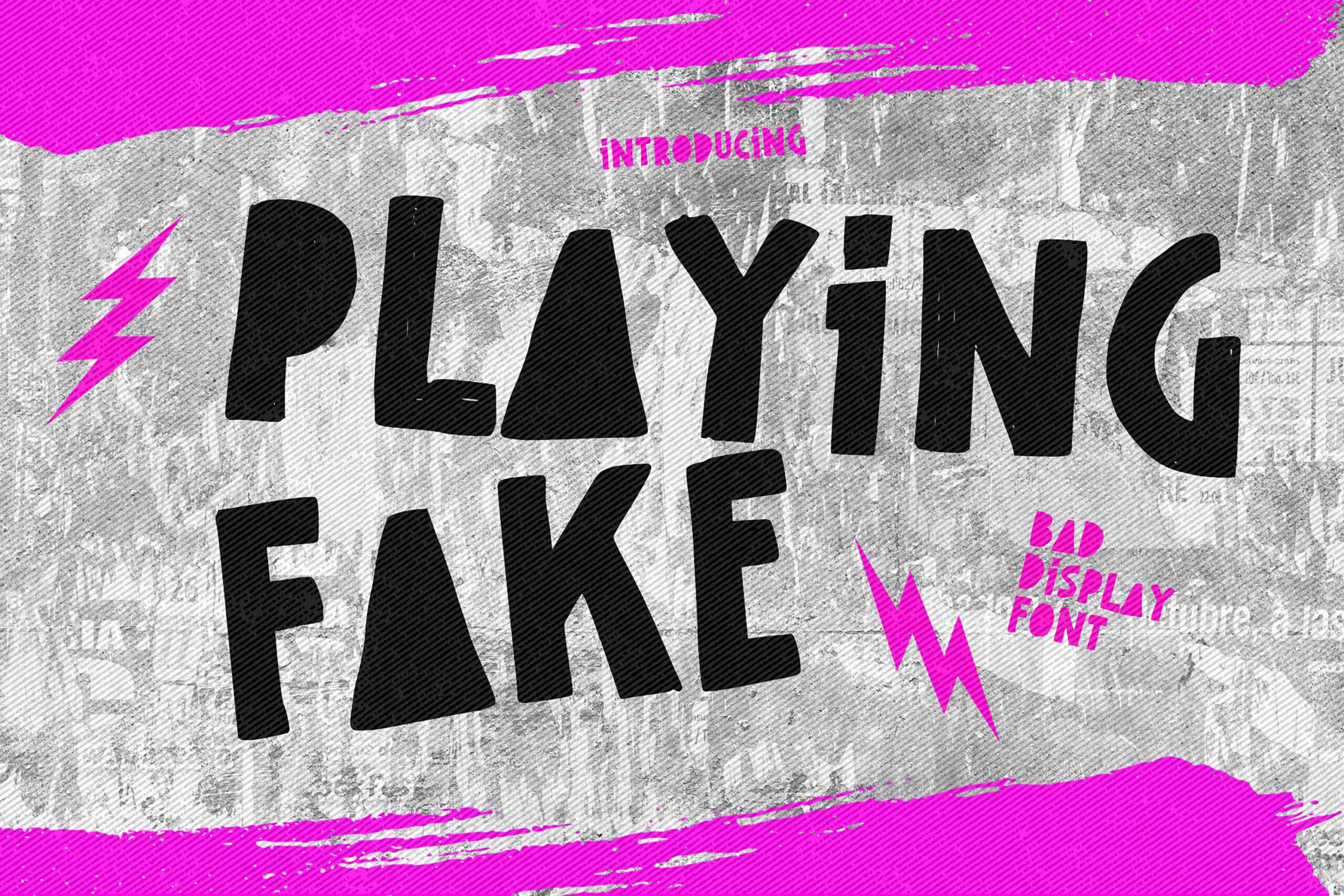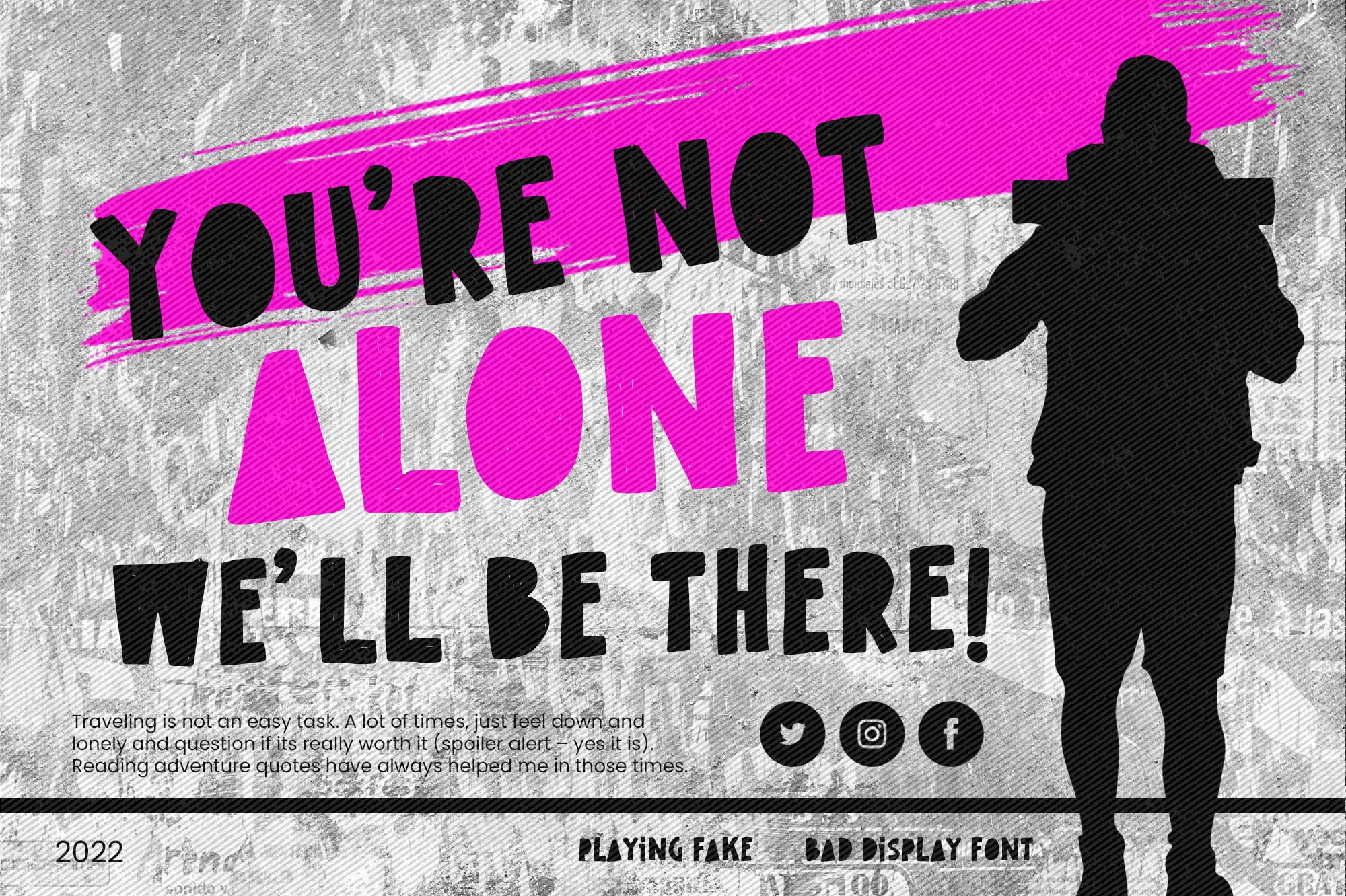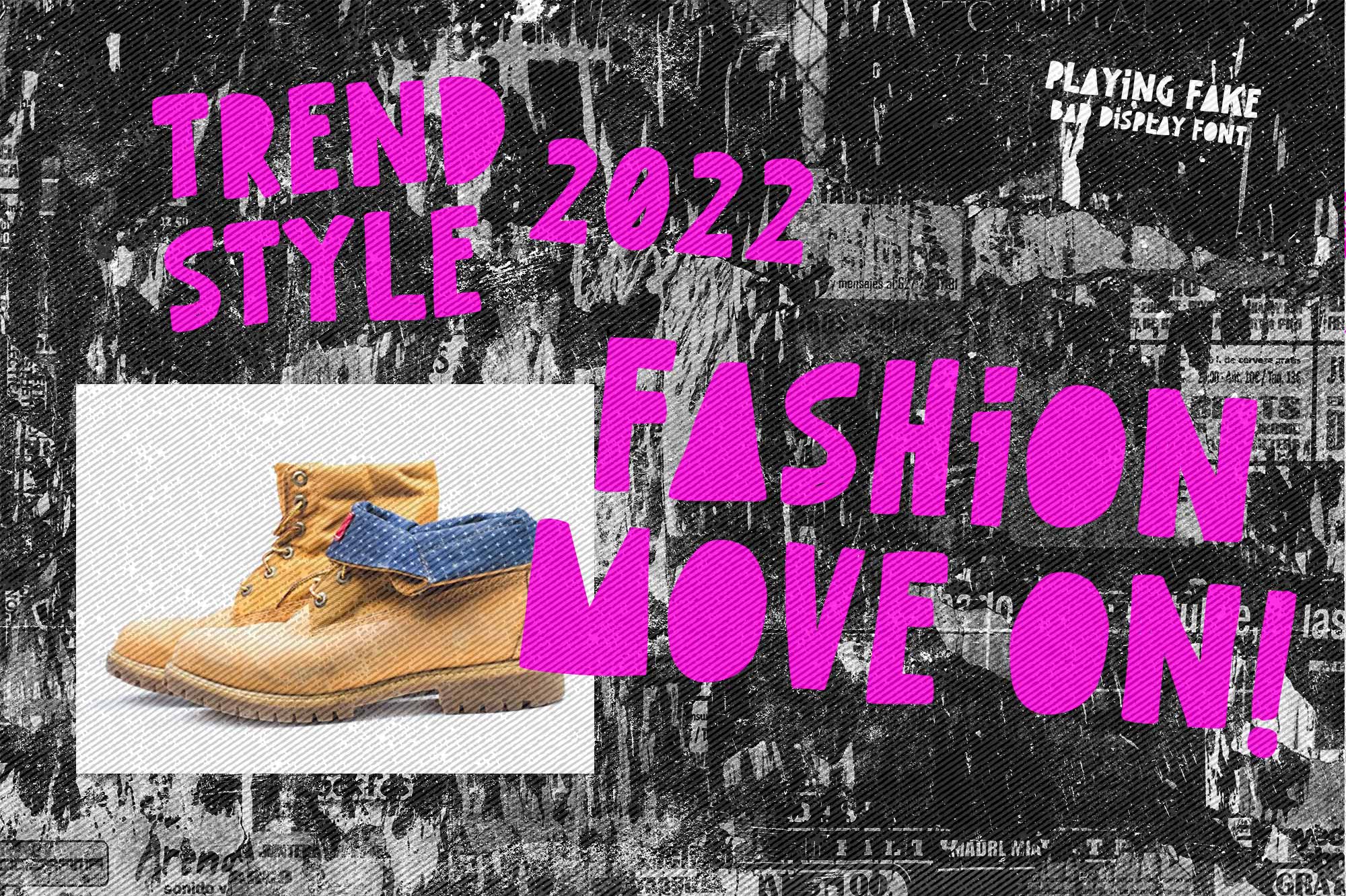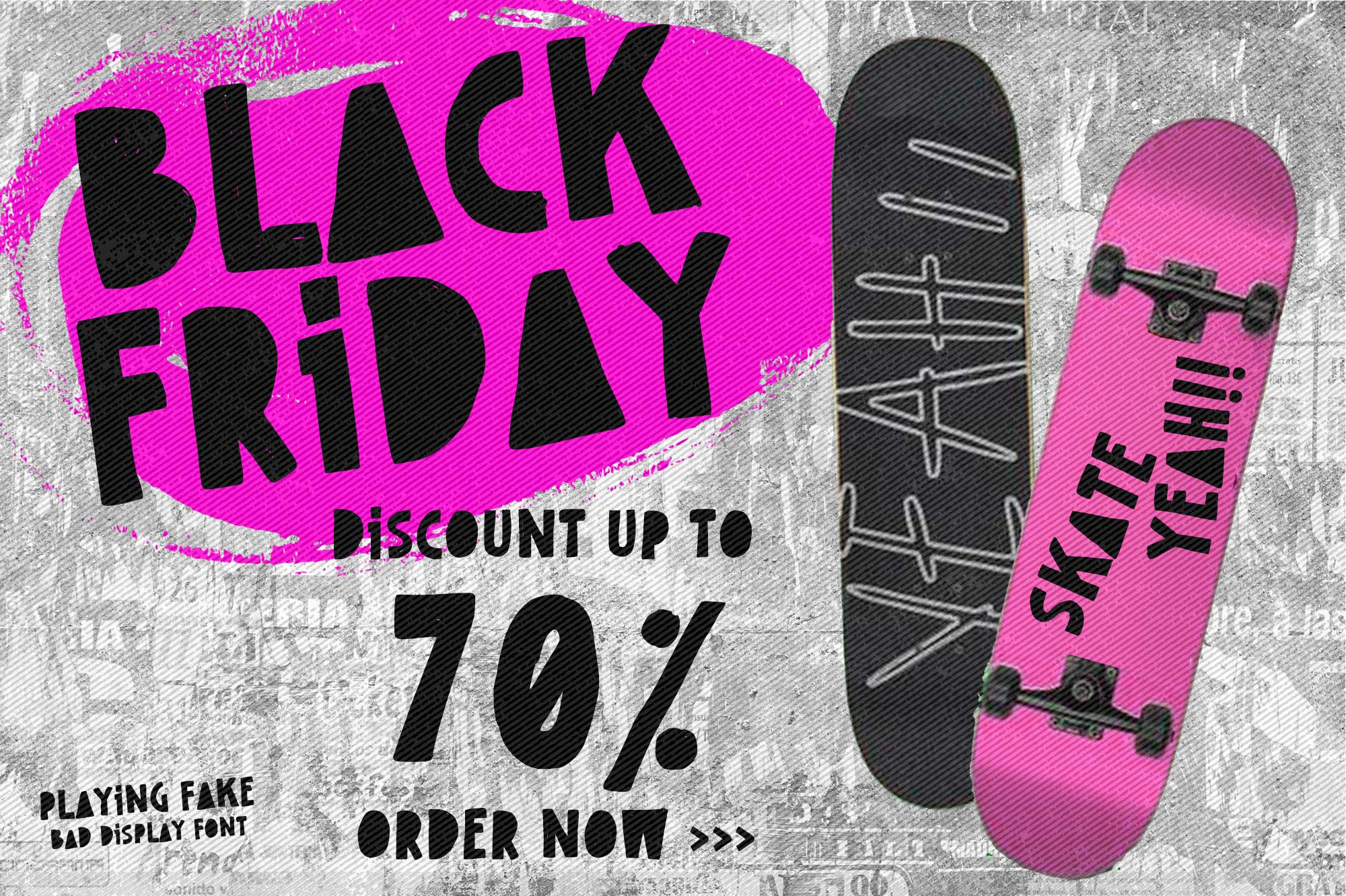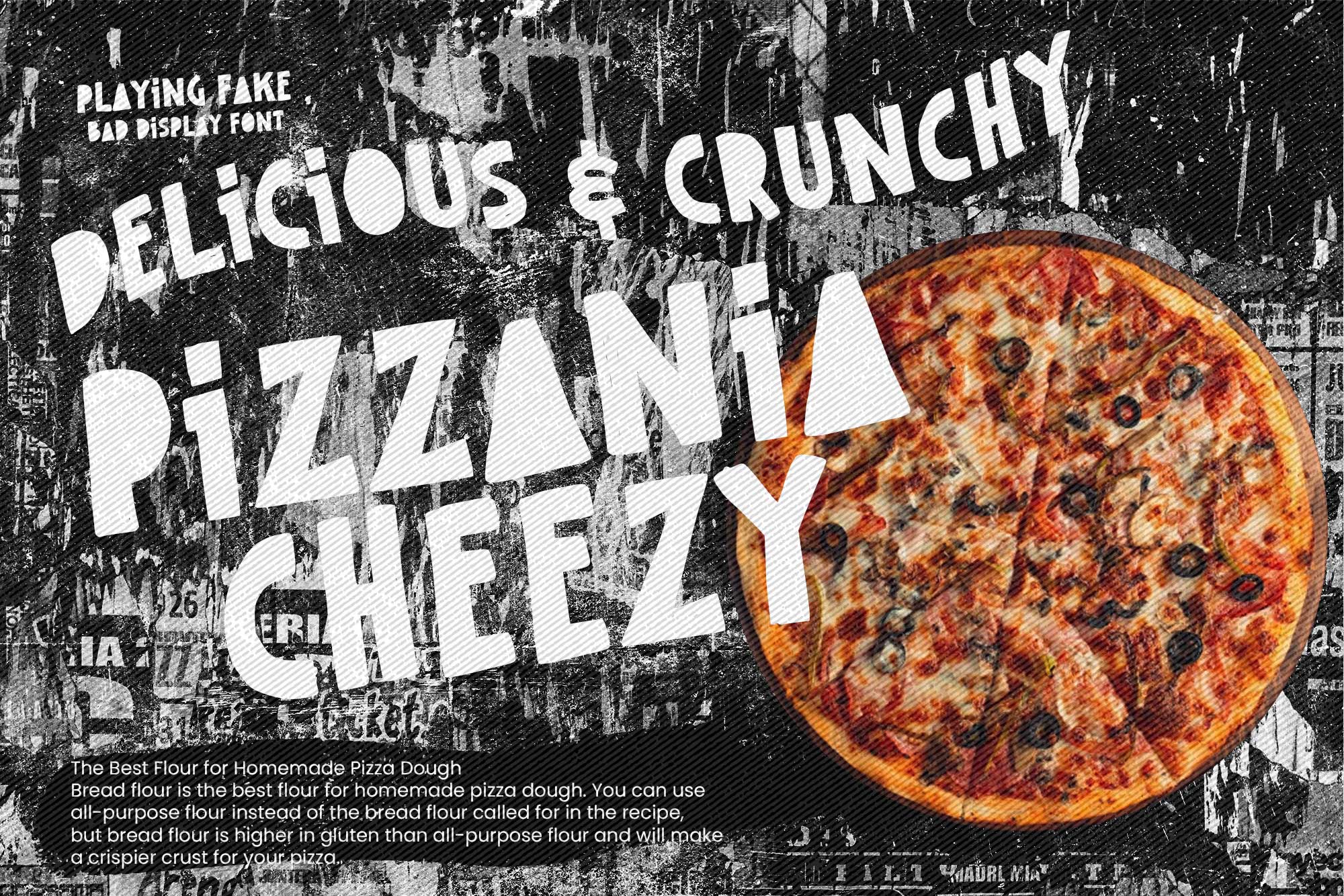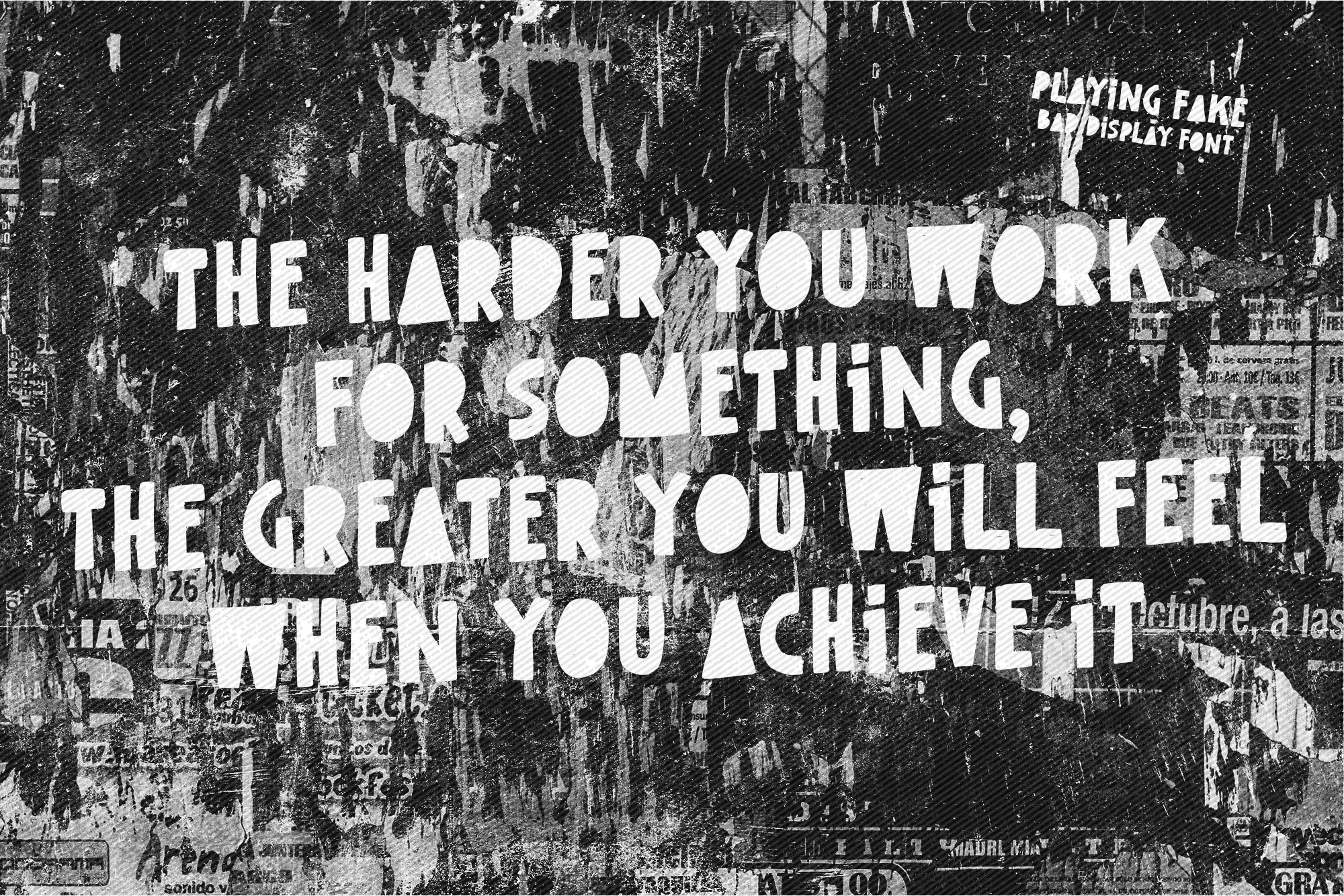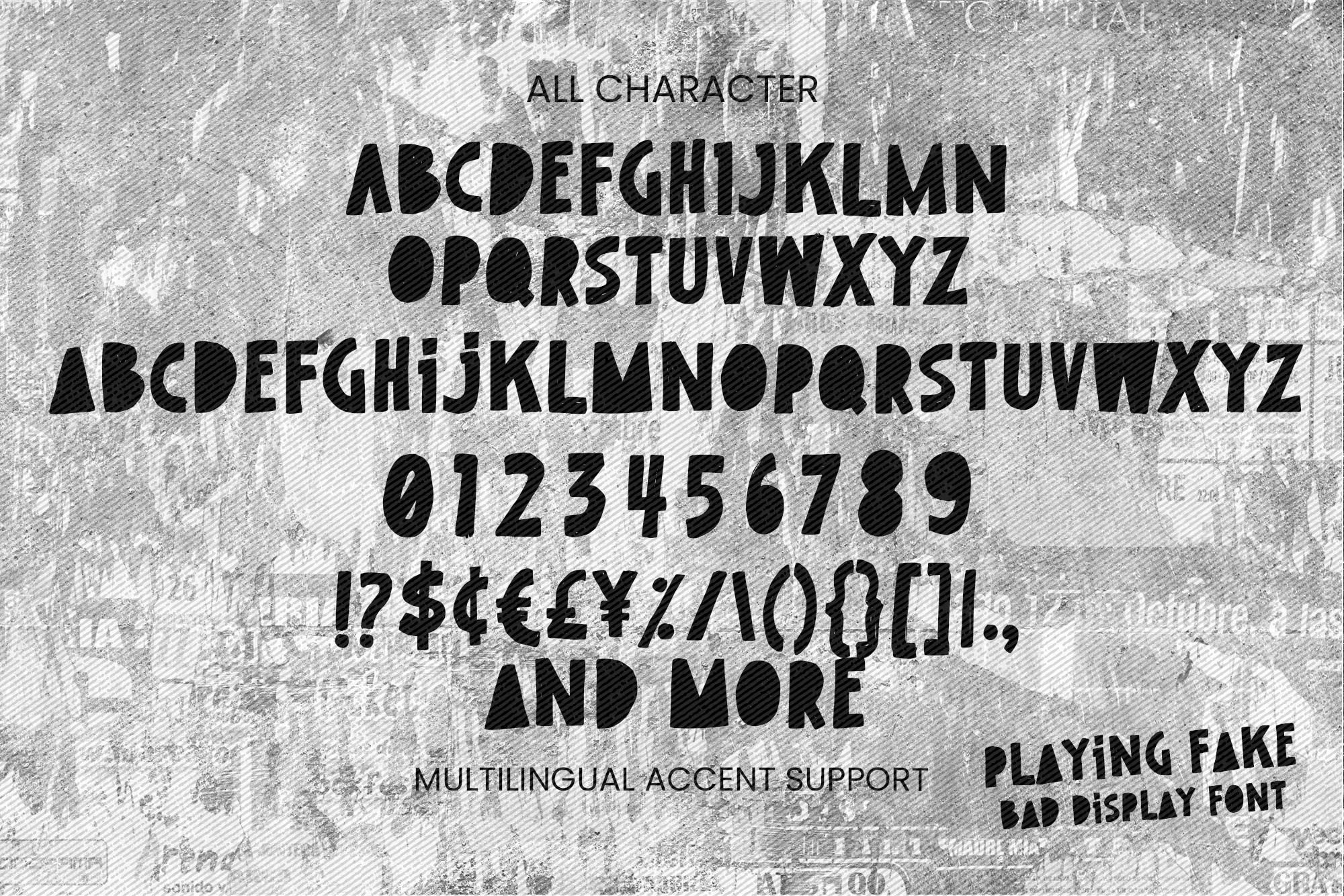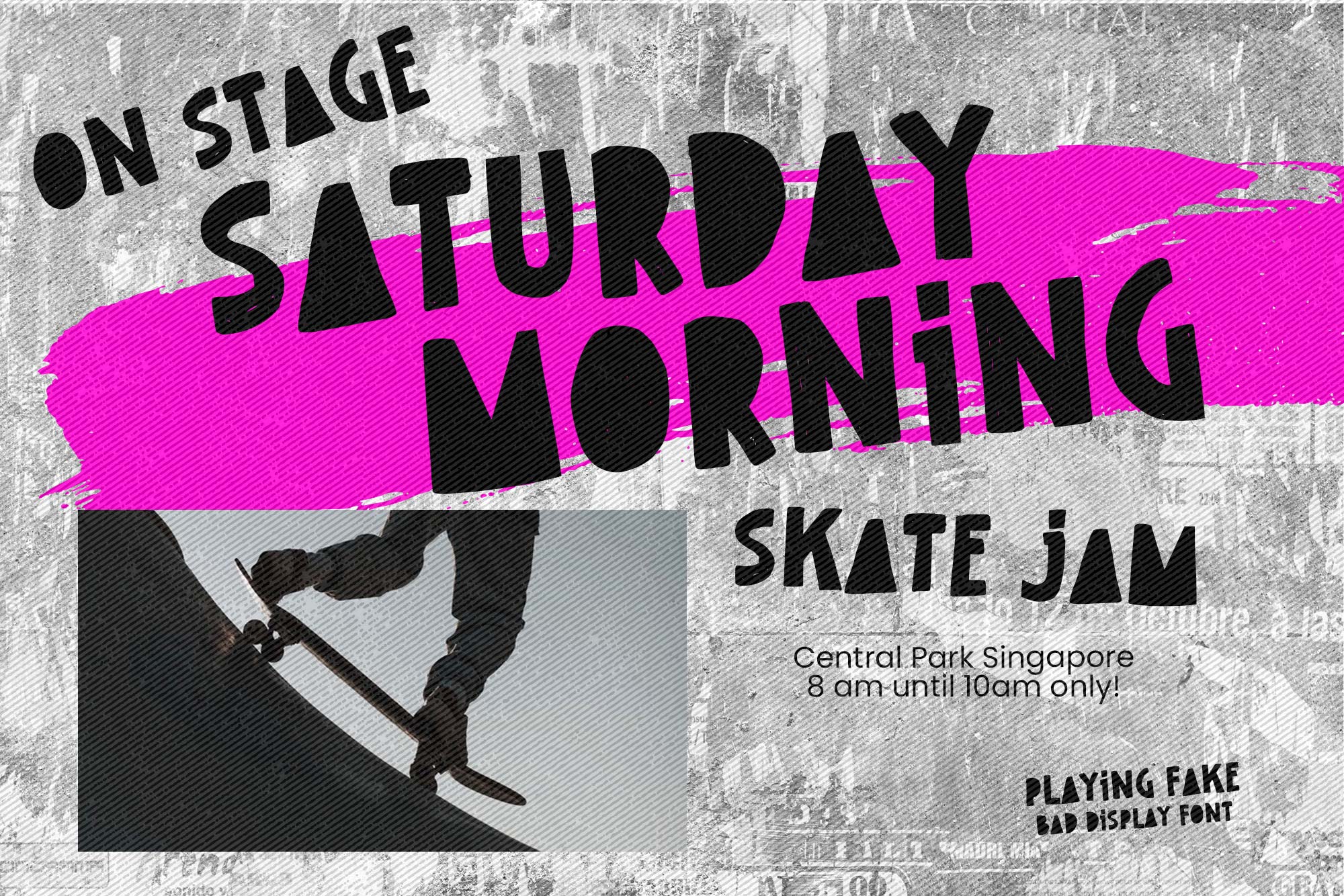
PLAYING FAKE – Bad Display Font ,modern style and creative movement that is written casually and quickly.
The best for food ,poster,project , designs look modern, unique and fun. It’s perfect for labels, quotes, posters, DIY projects, branding, packaging, greeting cards, websites, photography overlays, signs, scrapbooking, tags and so much more! That is why PLAYING FAKE has a cute , and allcaps characteristic more natural look.